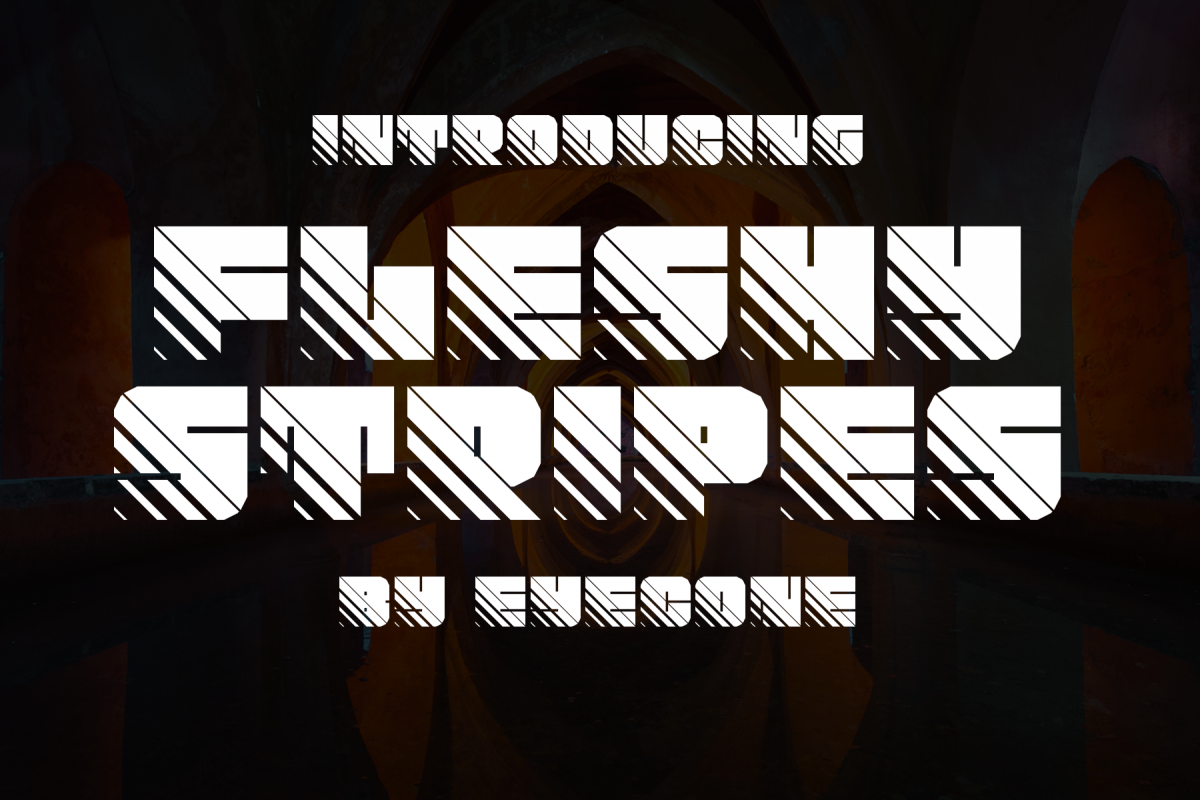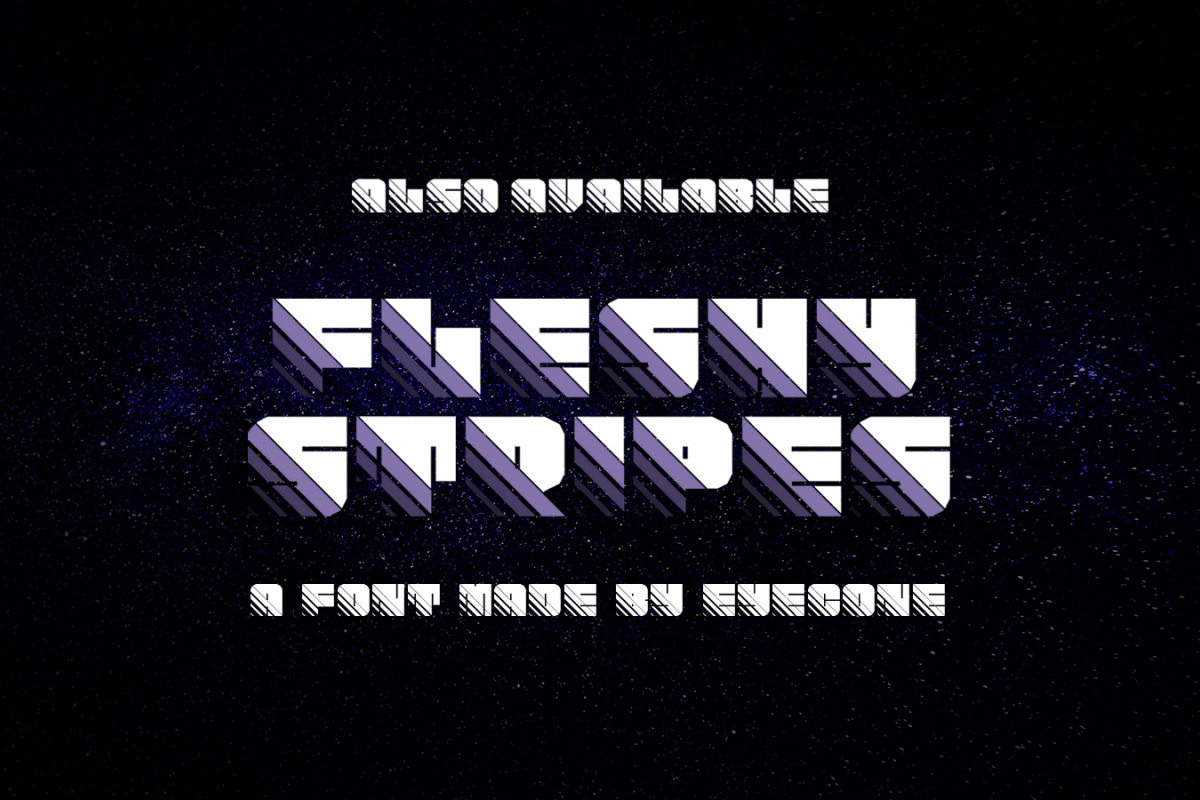
Created By EyeCone
Fleshy
fleshy-spare
fleshy-pad
fleshy-stripes
The Fleshy is a decorative family which comes in three weights: spare , pad and stripes. Its unique style will give all your designs an extraordinary outcome.